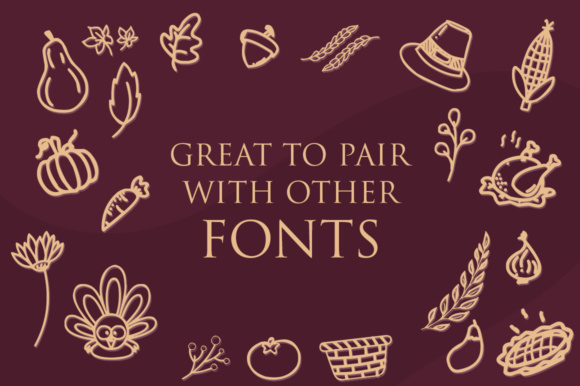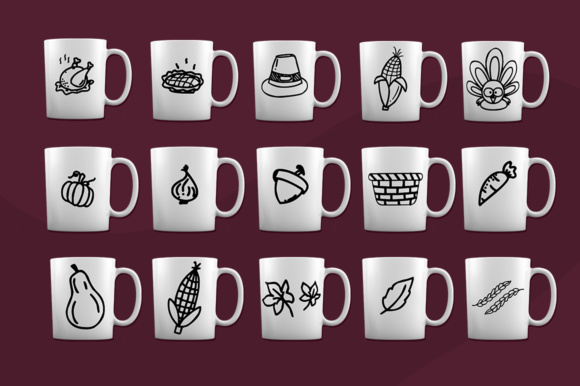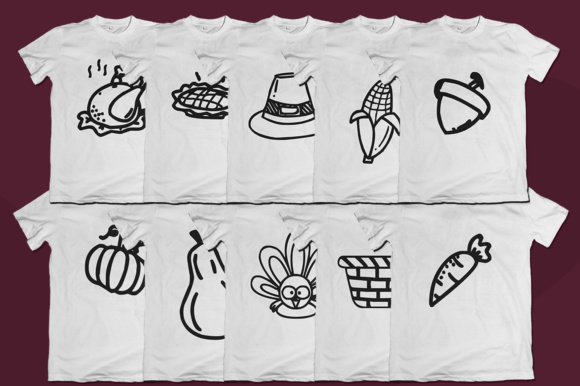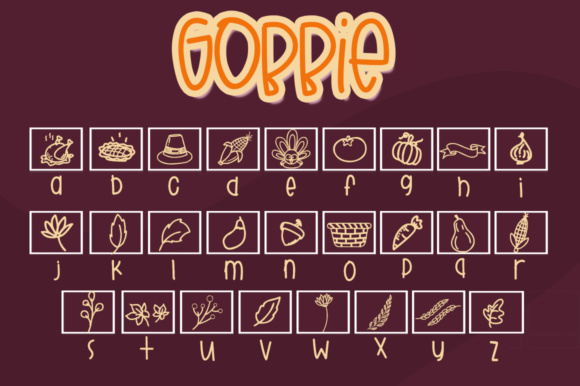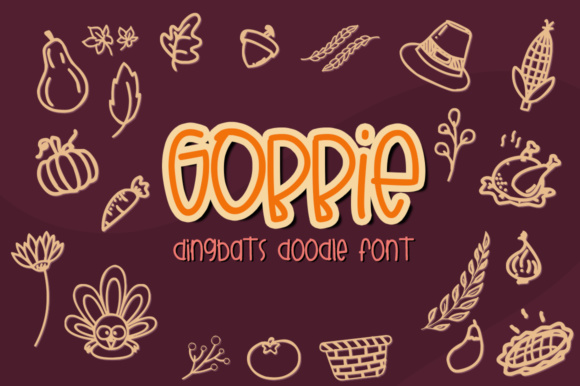
The Thanksgiving-themed doodles font is a delightful choice for mixing and matching with other fonts and designs. It offers a versatile selection of doodles that perfectly capture the essence of the Thanksgiving season.
With this font, you can create personalized cards, merchandise, t-shirts, and more, all adorned with charming and festive doodles. Whether you’re expressing gratitude, celebrating the harvest, or simply spreading warm wishes, these doodles add a playful and heartfelt touch to your creations.
Mixing and matching this font with other fonts and design elements allows for endless possibilities. You can combine the doodles with different typography styles, create custom compositions, and tailor your designs to suit your unique vision and message.
The Thanksgiving-themed doodles font is particularly well-suited for creating warm and inviting visuals. The cheerful and whimsical nature of the doodles helps evoke a sense of joy, togetherness, and gratitude, which are central themes of the Thanksgiving holiday.
By utilizing this font, you can infuse your designs with a touch of personality and charm. Whether you’re crafting greeting cards for loved ones, designing merchandise for a Thanksgiving-themed event, or creating custom apparel, the doodles provide a delightful and eye-catching element that sets your designs apart.
The versatility of the Thanksgiving-themed doodles font allows you to adapt it to various mediums and projects. Whether you’re working digitally or incorporating the doodles into physical products, such as prints or merchandise, the font ensures that you can easily create warm and memorable visuals.
In summary, the Thanksgiving-themed doodles font offers a delightful and versatile selection of doodles that capture the spirit of the holiday season. With these doodles, you can mix and match with other fonts and designs to create personalized cards, merchandise, t-shirts, and more. The playful and heartfelt nature of the doodles adds a touch of warmth and charm to your creations, making them perfect for expressing gratitude and celebrating Thanksgiving.